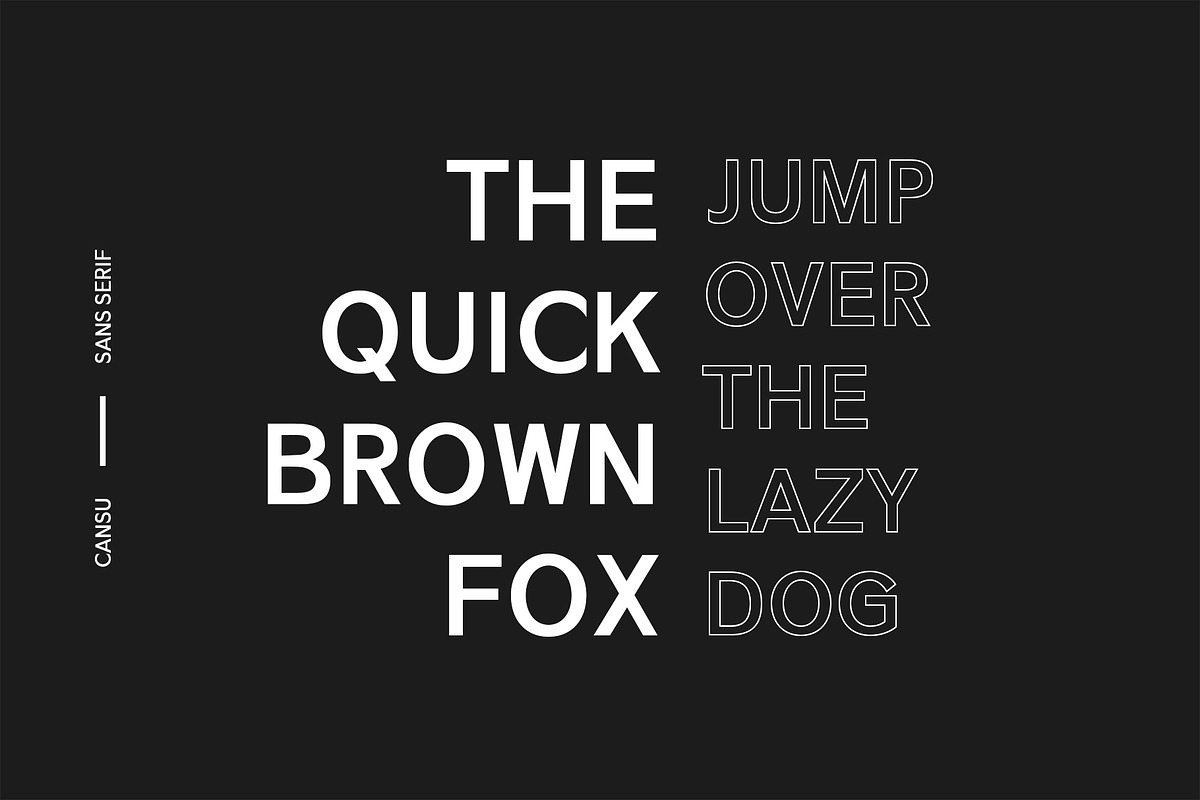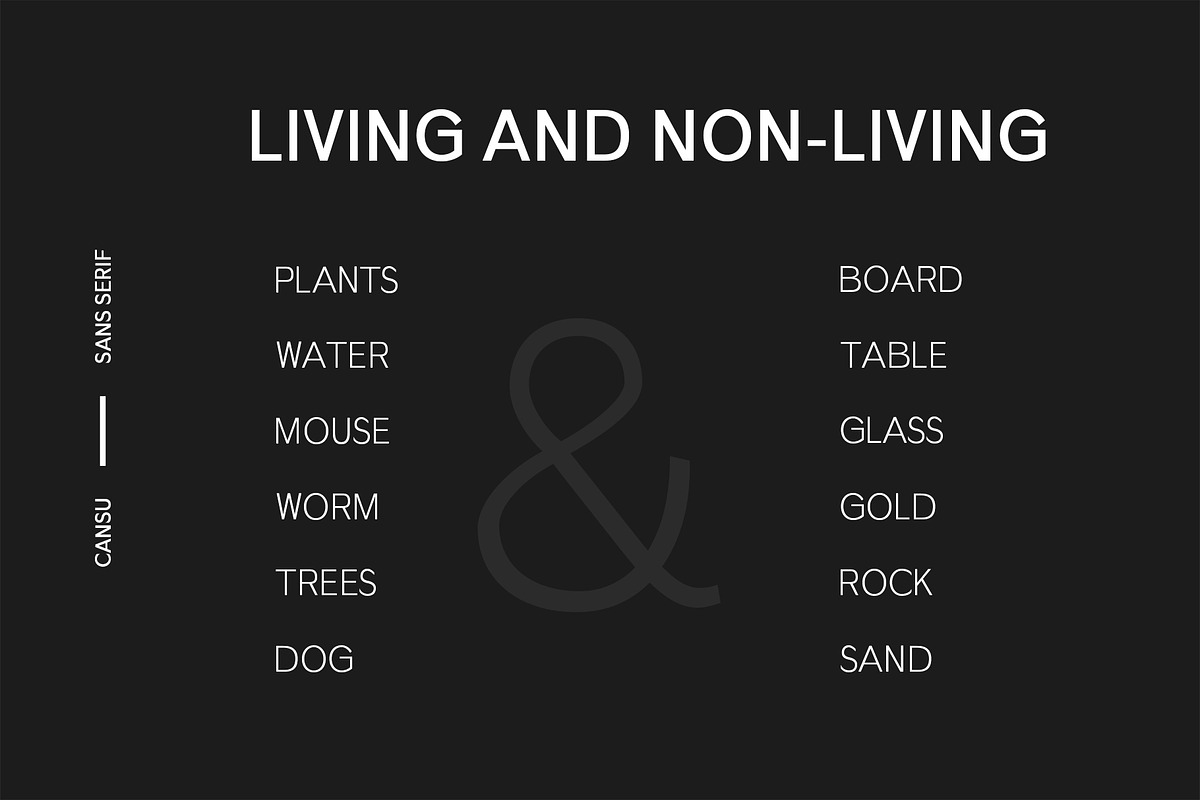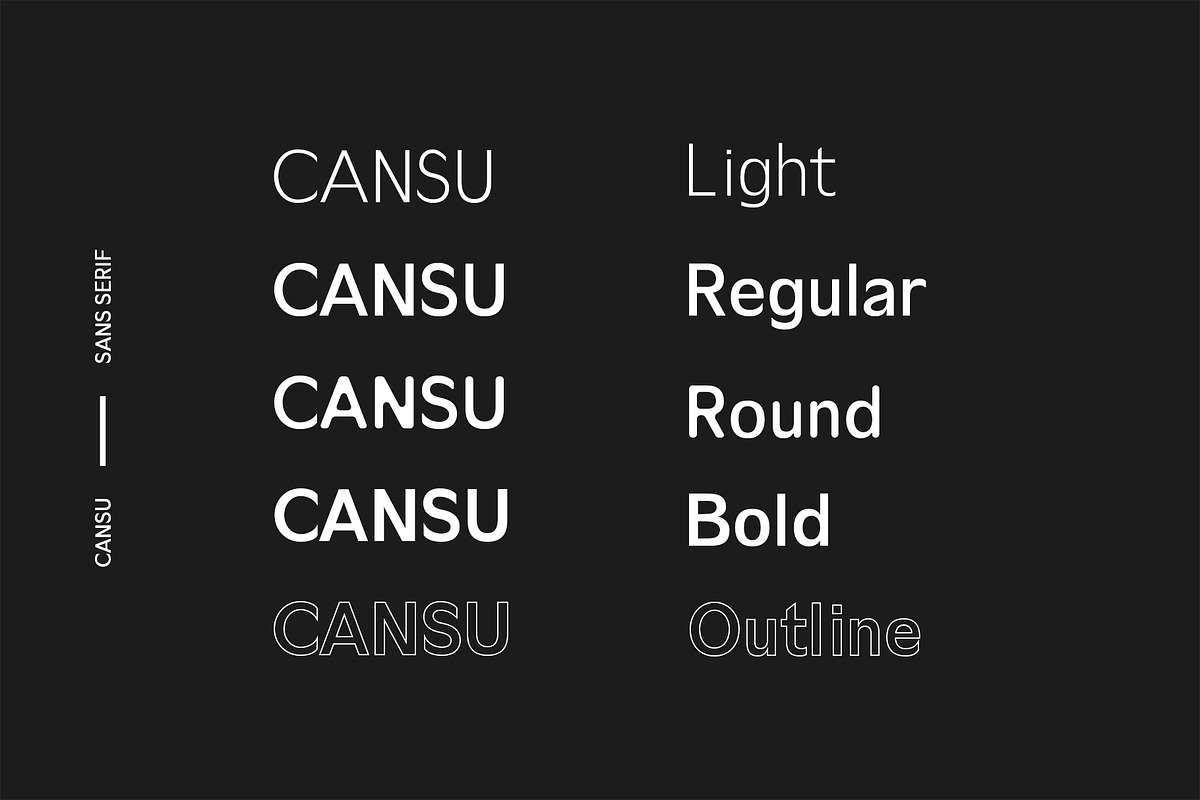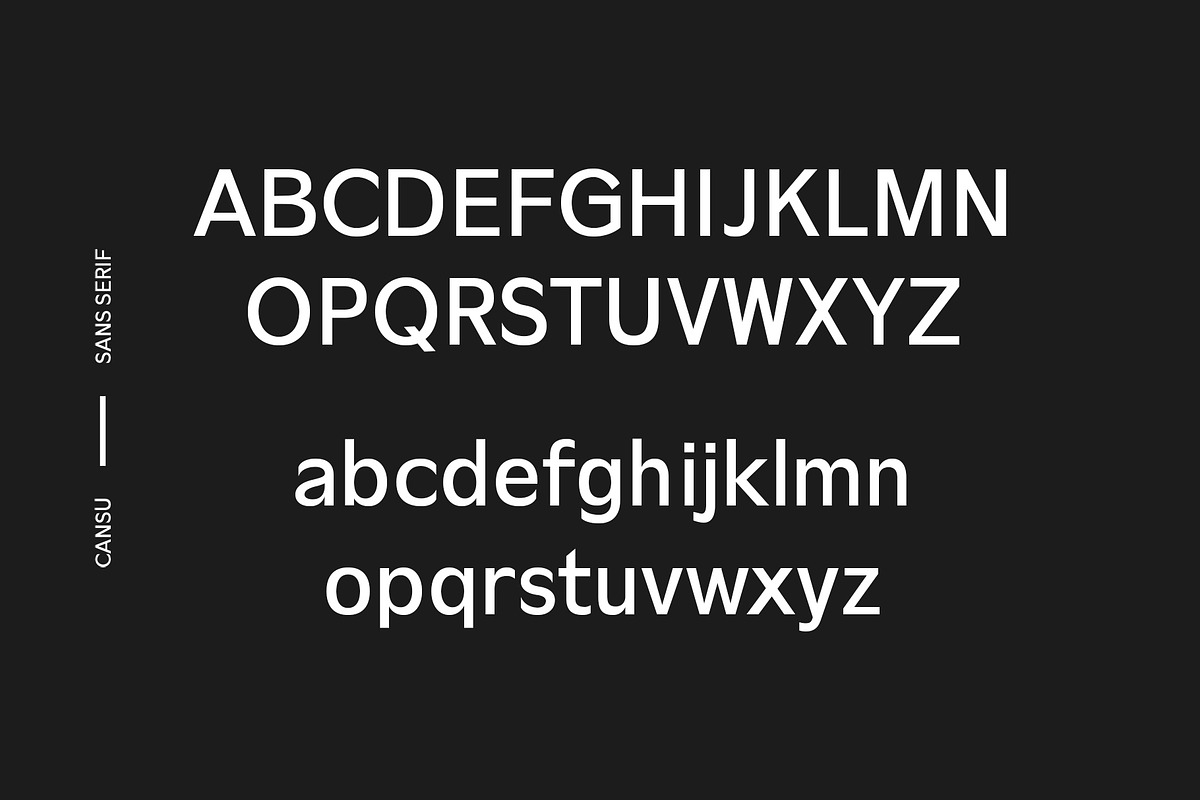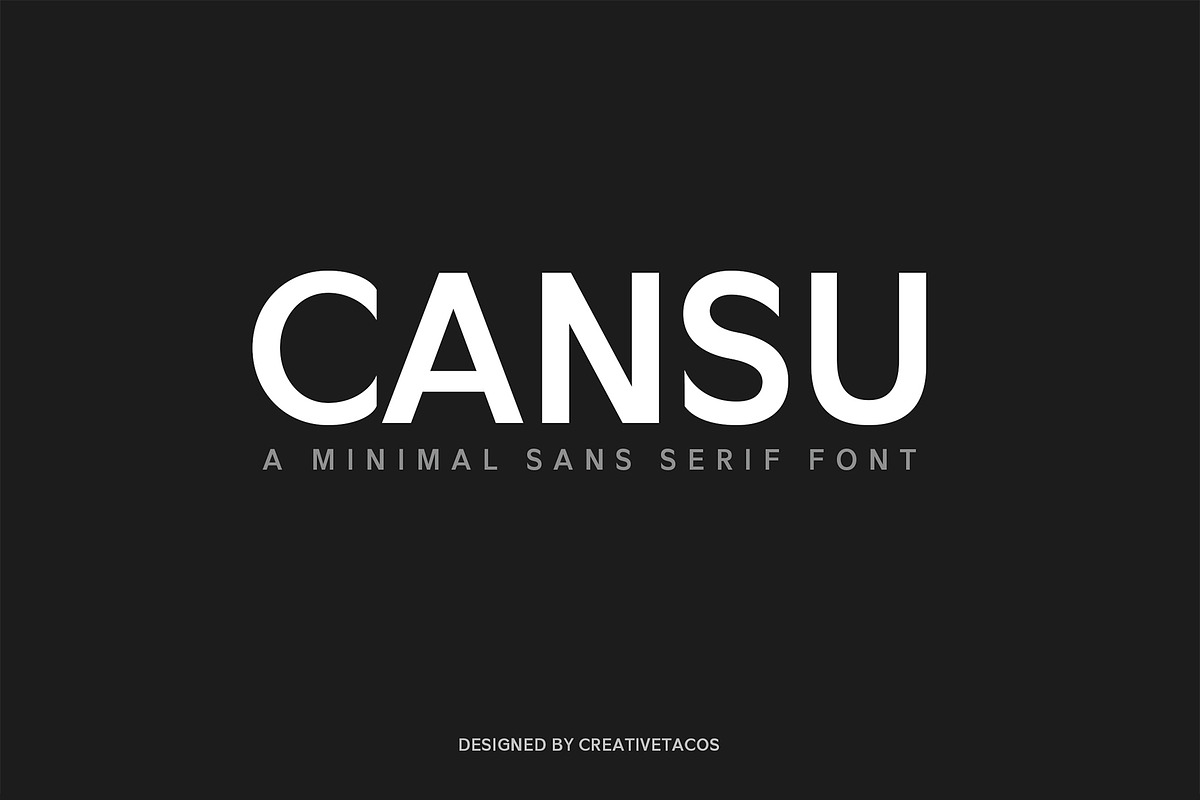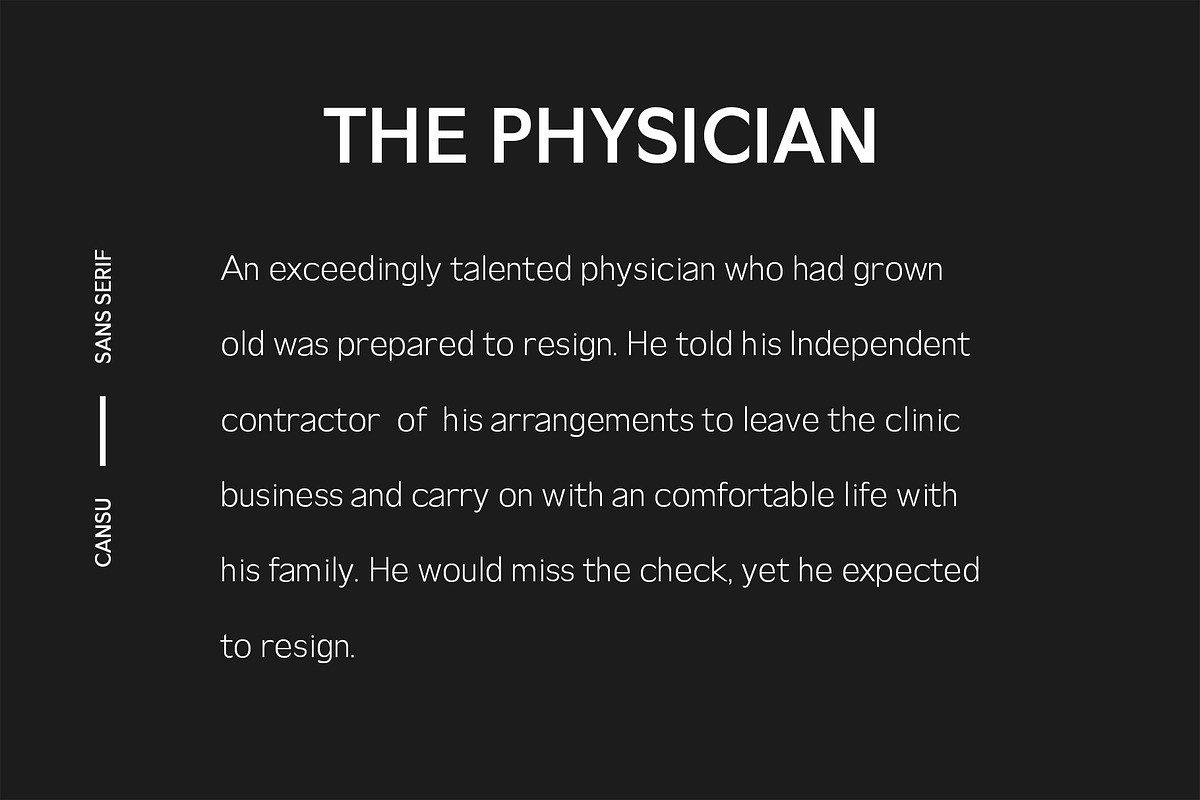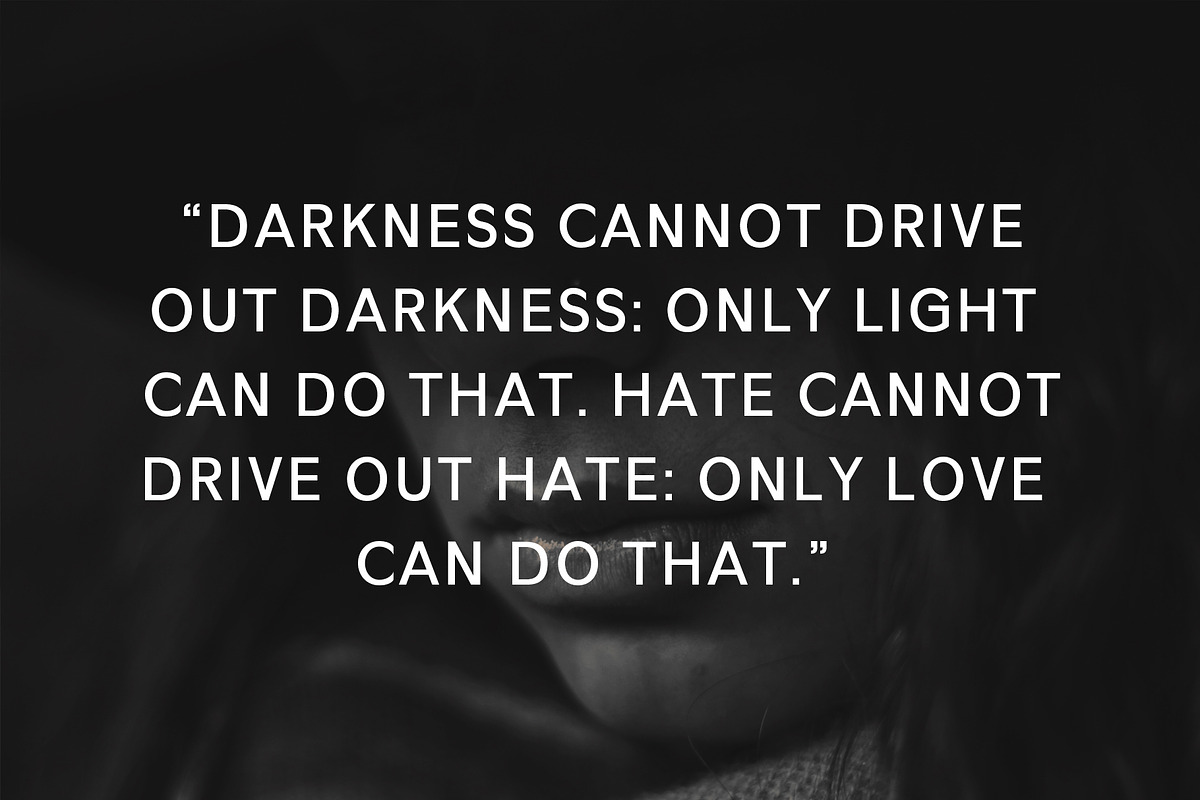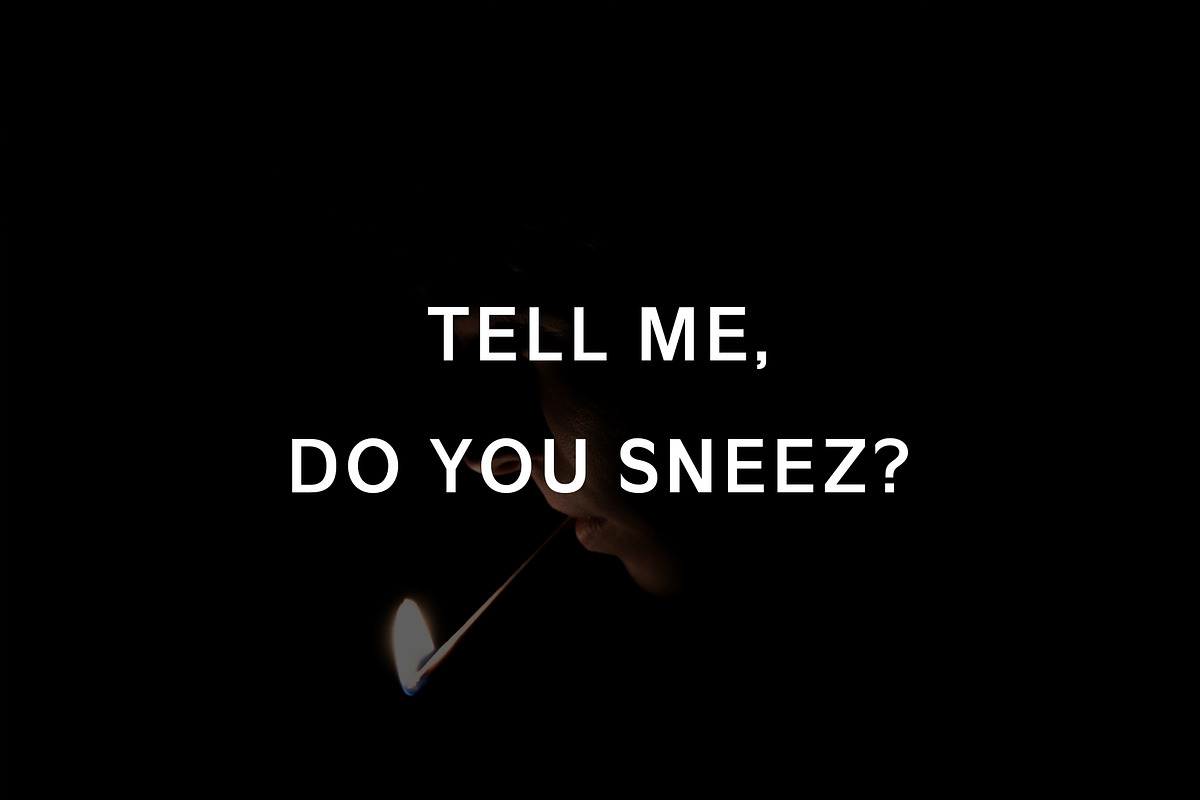
Cansu Sans Serif Font Family
Cansu is a classy minimal rounded sans serif typeface. It comes with 5 weights: Regular, Light, Round, Outline and Bold versions, which contains complete basic glyphs with multilingual support. Cansu will be perfect for packaging, presentations, logo, headlines, lettering, posters, branding, quotes, titles, magazines headings, web layouts, advertising, invitations, packaging design, books, and nearly any creative design.
Font Weight: Regular, Light, Round, Outline and Bold
- It comes with 5 weights: Regular, Light, Round, Outline and Bold versions, which contains complete basic glyphs with multilingual support.
Cansu Sans Serif Font Family by Creativetacos fits naturally into Branding, posters, packaging, typography.